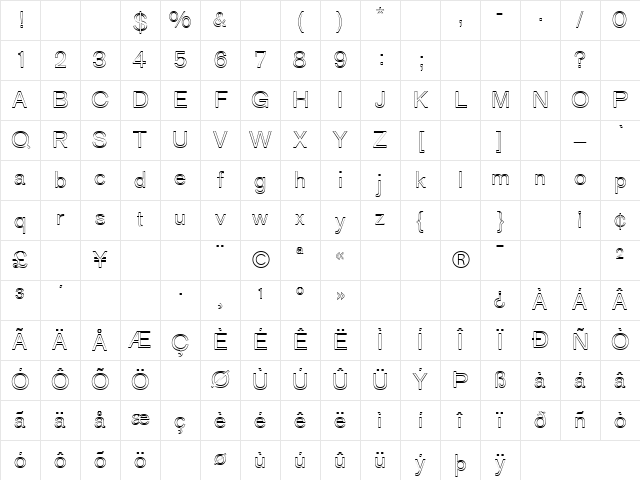
AGOldFace Outline
Style: Outline
Complete AGOldFace Outline glyph index. Displaying only characters natively supported by AGOldFace Outline font.
Design Context for AGOldFace
AGOldFace is built around its visual character rather than neutral utility - its distinctive forms are designed to make an impression at display sizes.
Font Pairing: Pair with a clean neutral sans-serif for body copy to let AGOldFace's character lead without overwhelming the composition.
Pro Tip: Use AGOldFace exclusively at display sizes - it was designed to be seen, not read at length. Let a neutral companion handle body copy.